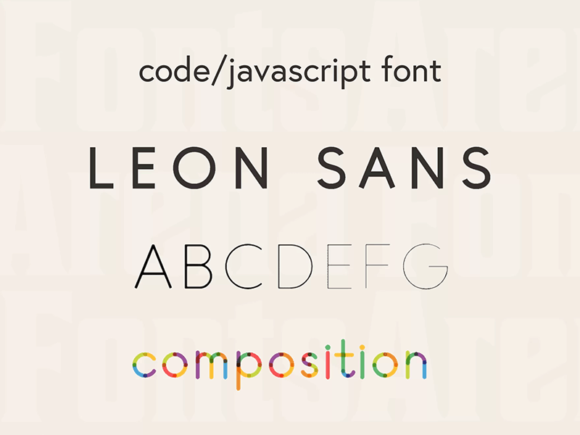
Leon Sans: A Geometric Typeface Based On JS
Leon Sans is a free geometric sans-serif typeface made with code (it’s based on JavaScript) by Jongmin Kim. It allows to adjust the font-weight and other properties dynamically via JS for creating custom animations, effects or shapes in an HTML canvas. Super cool, is it?